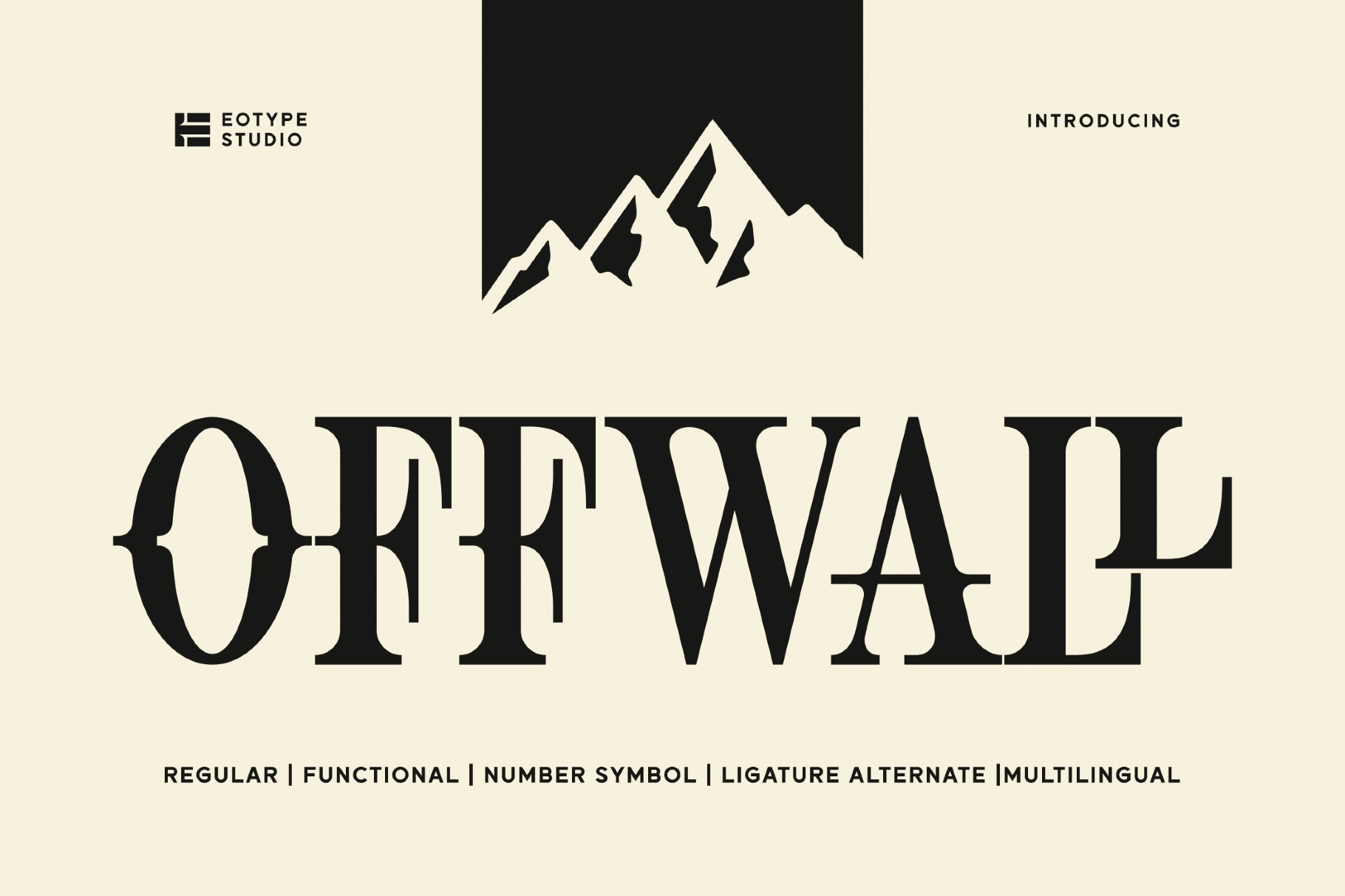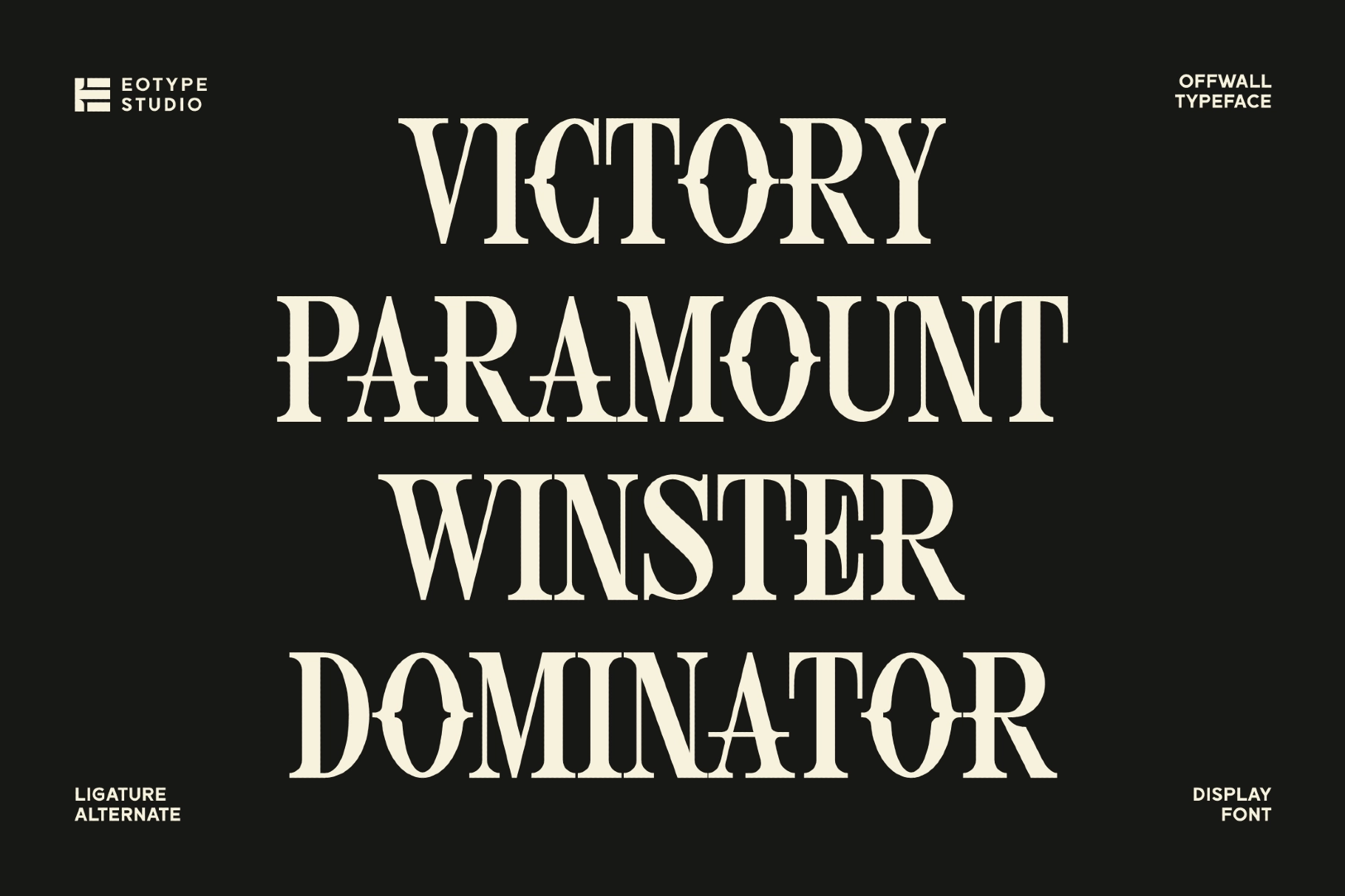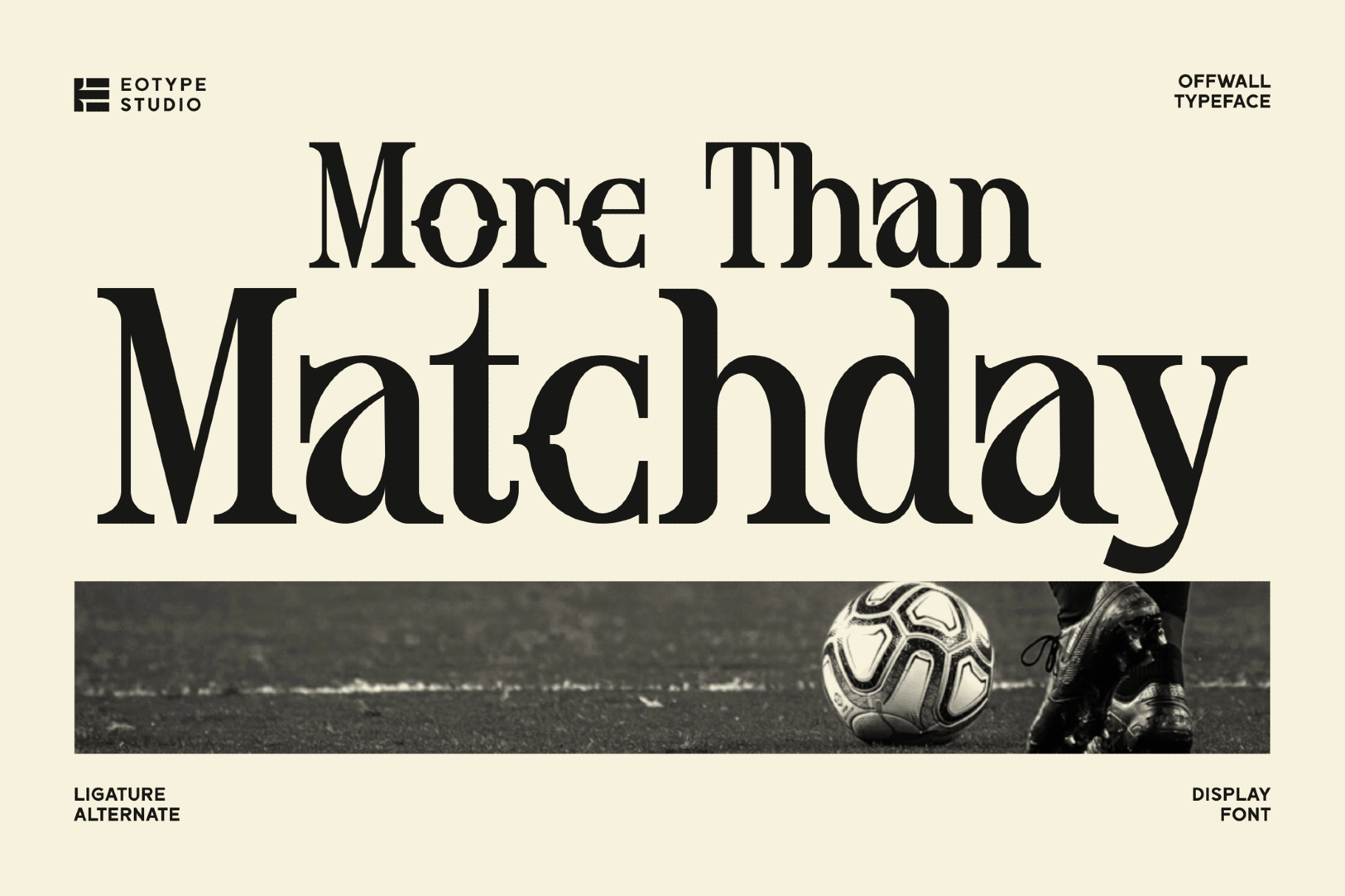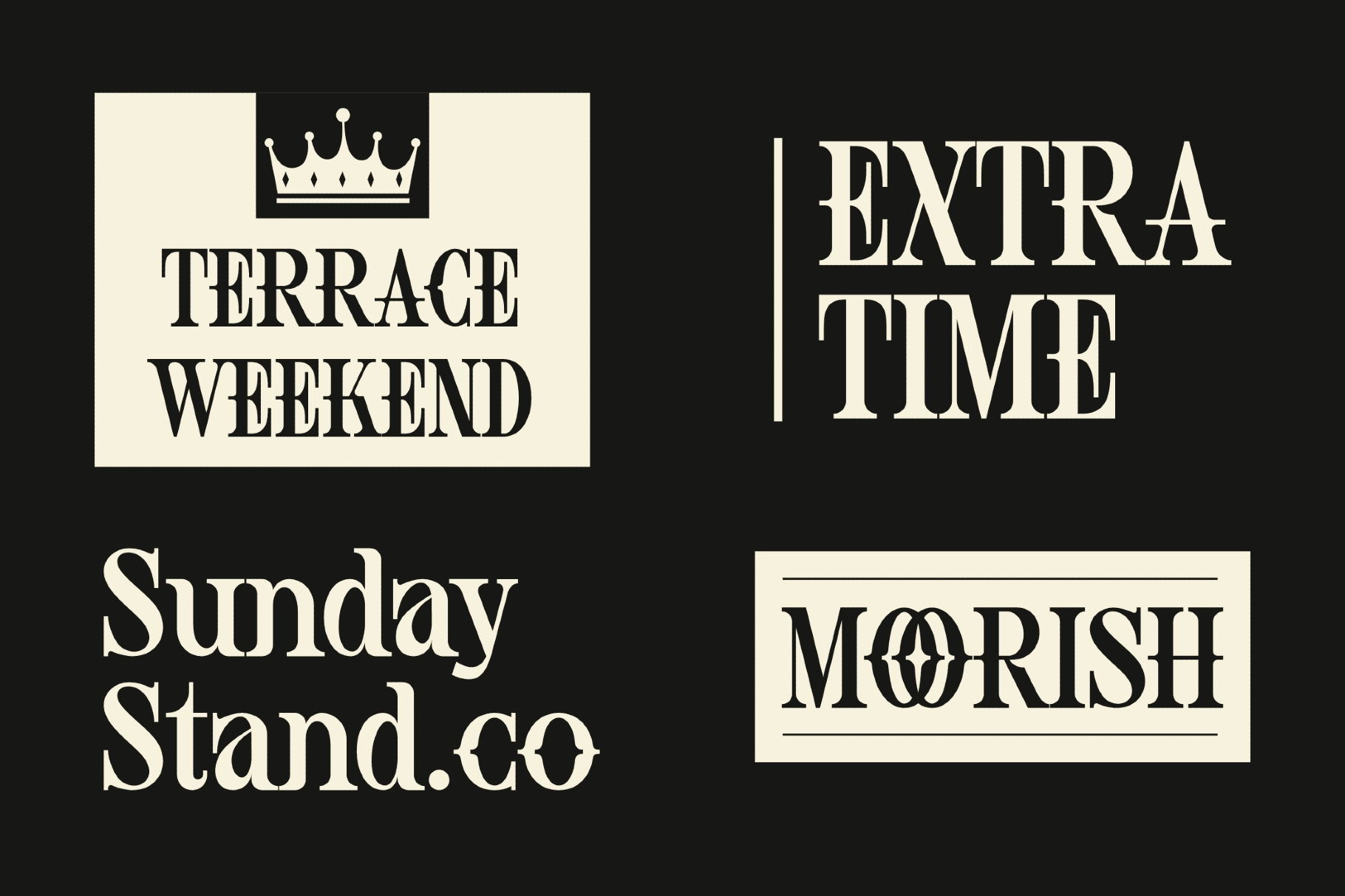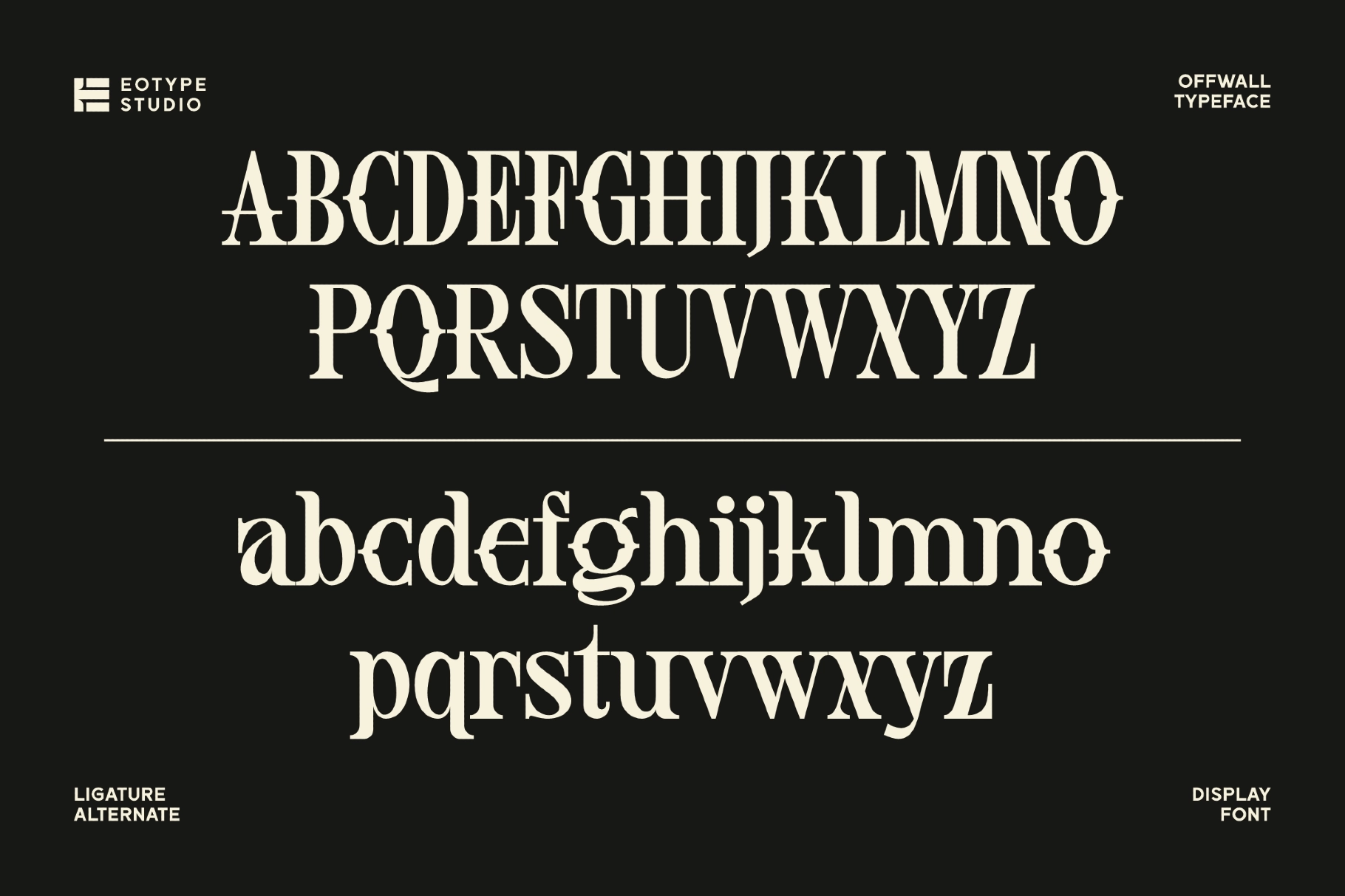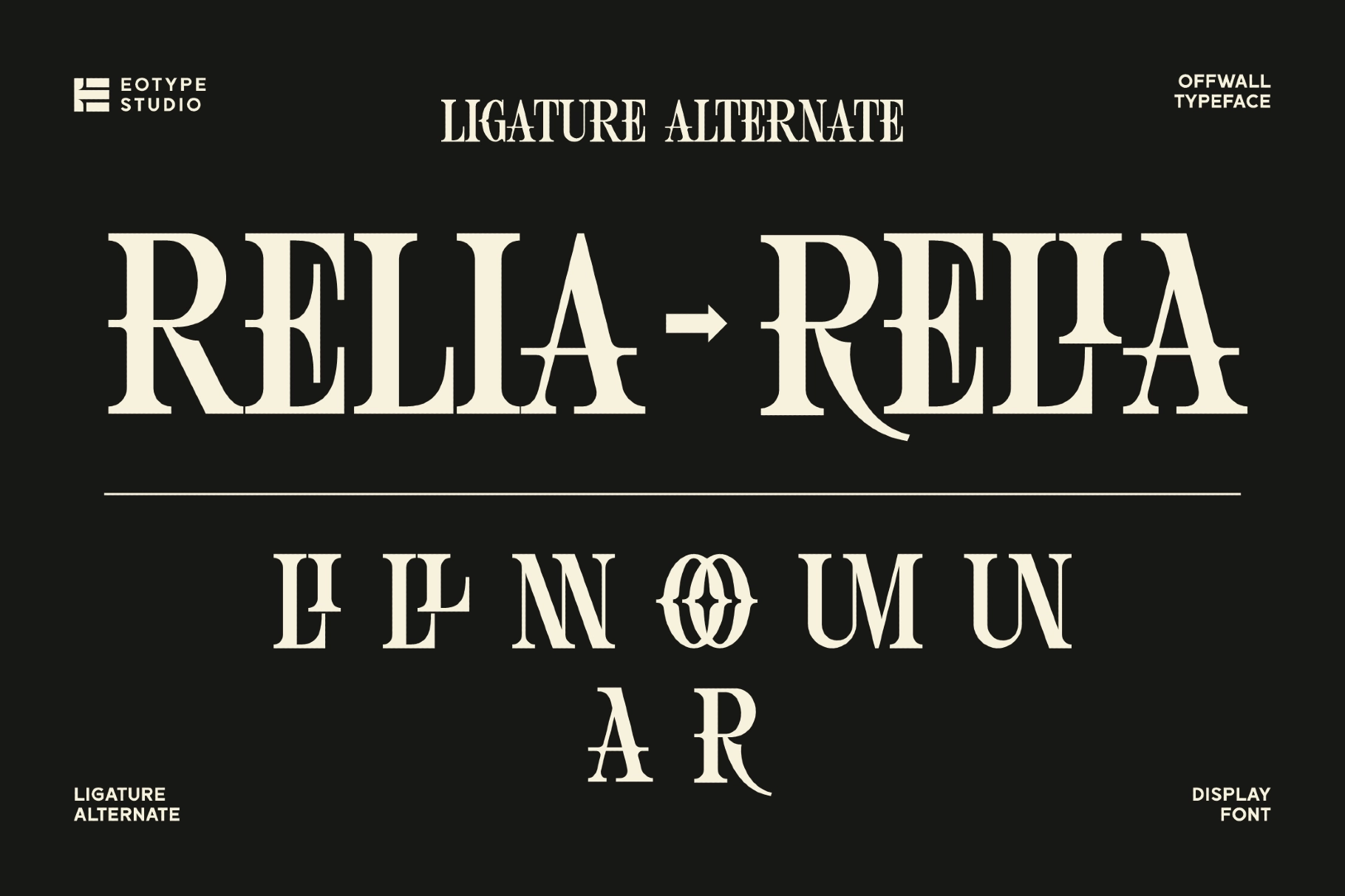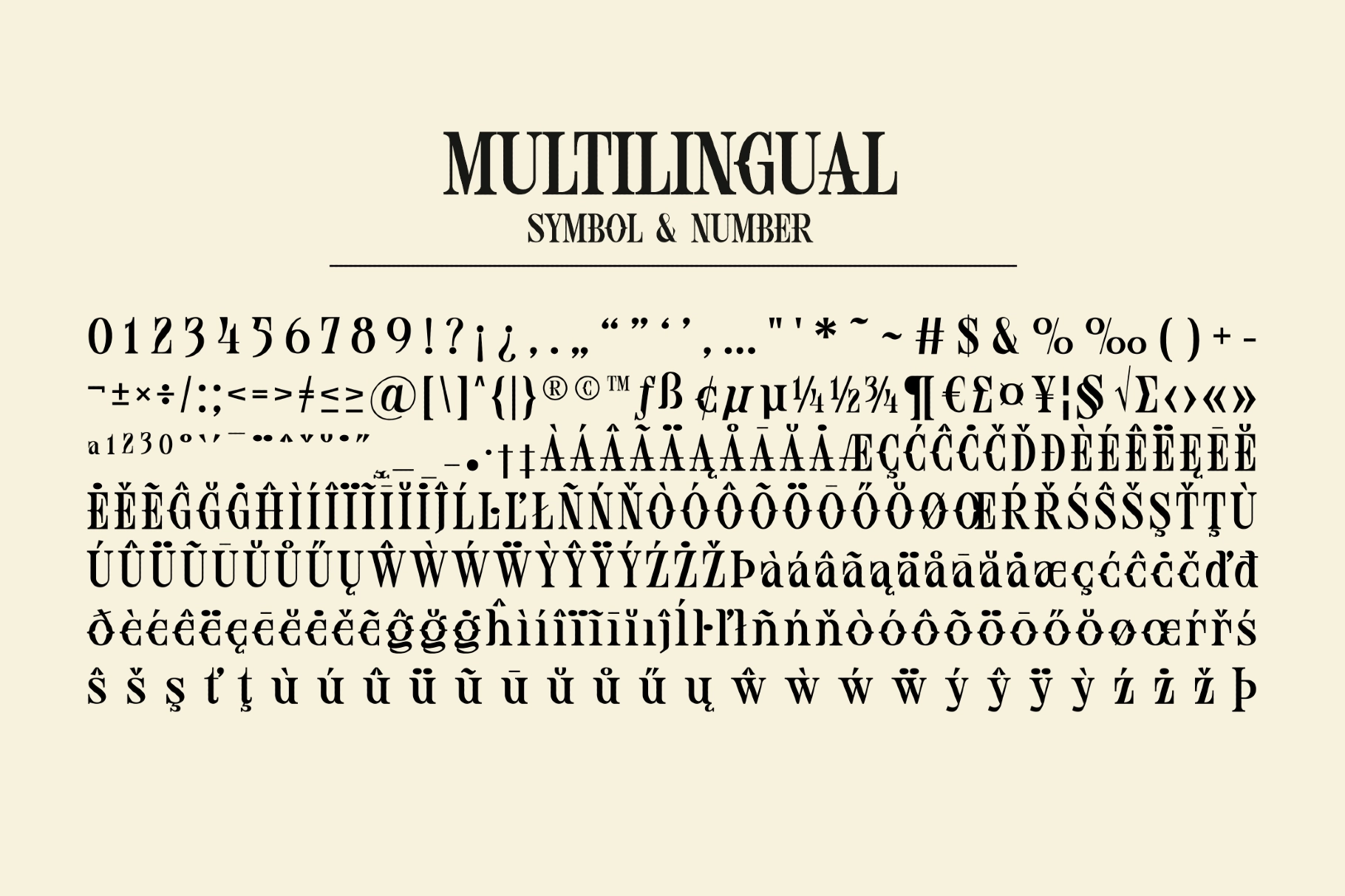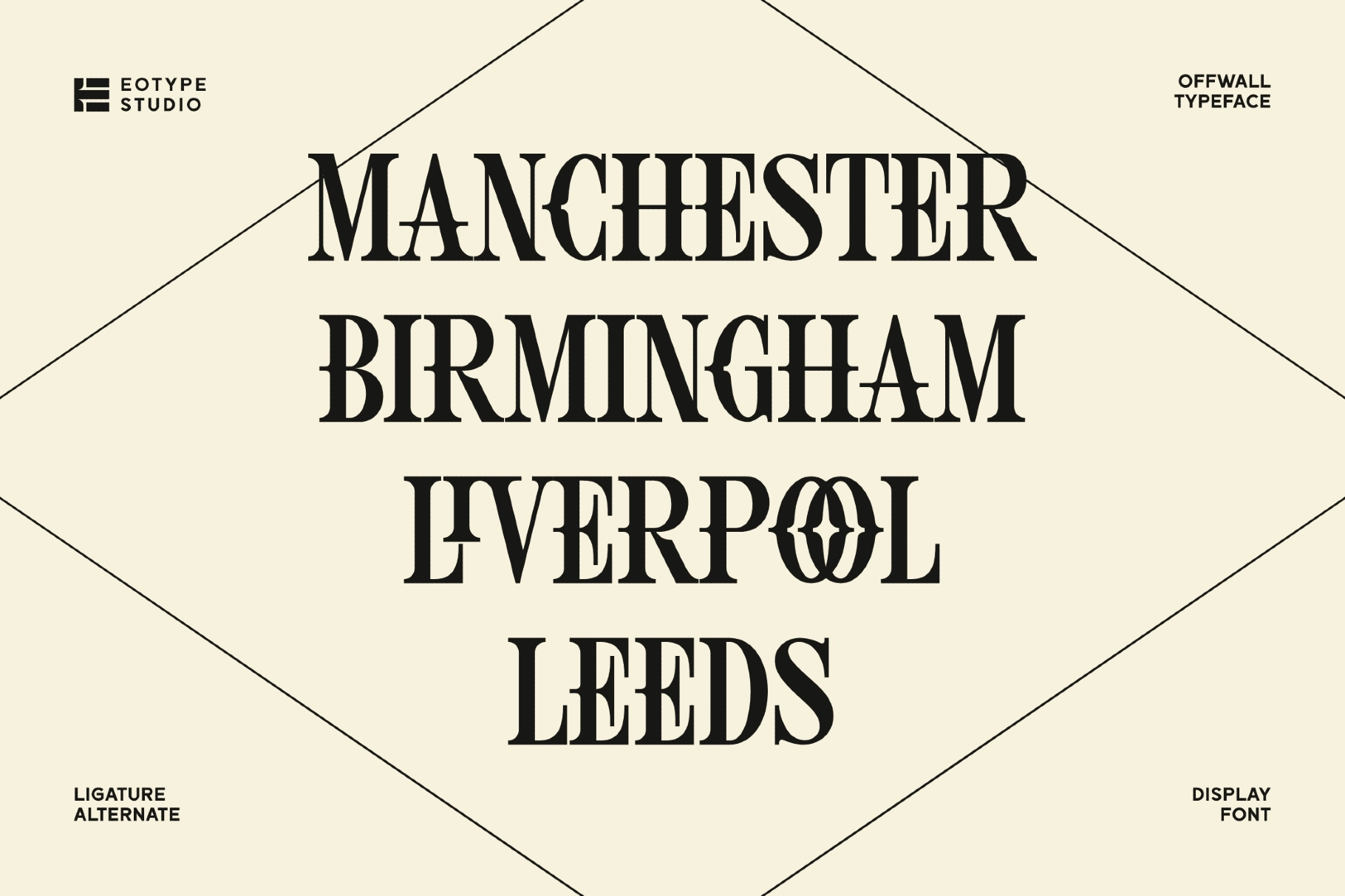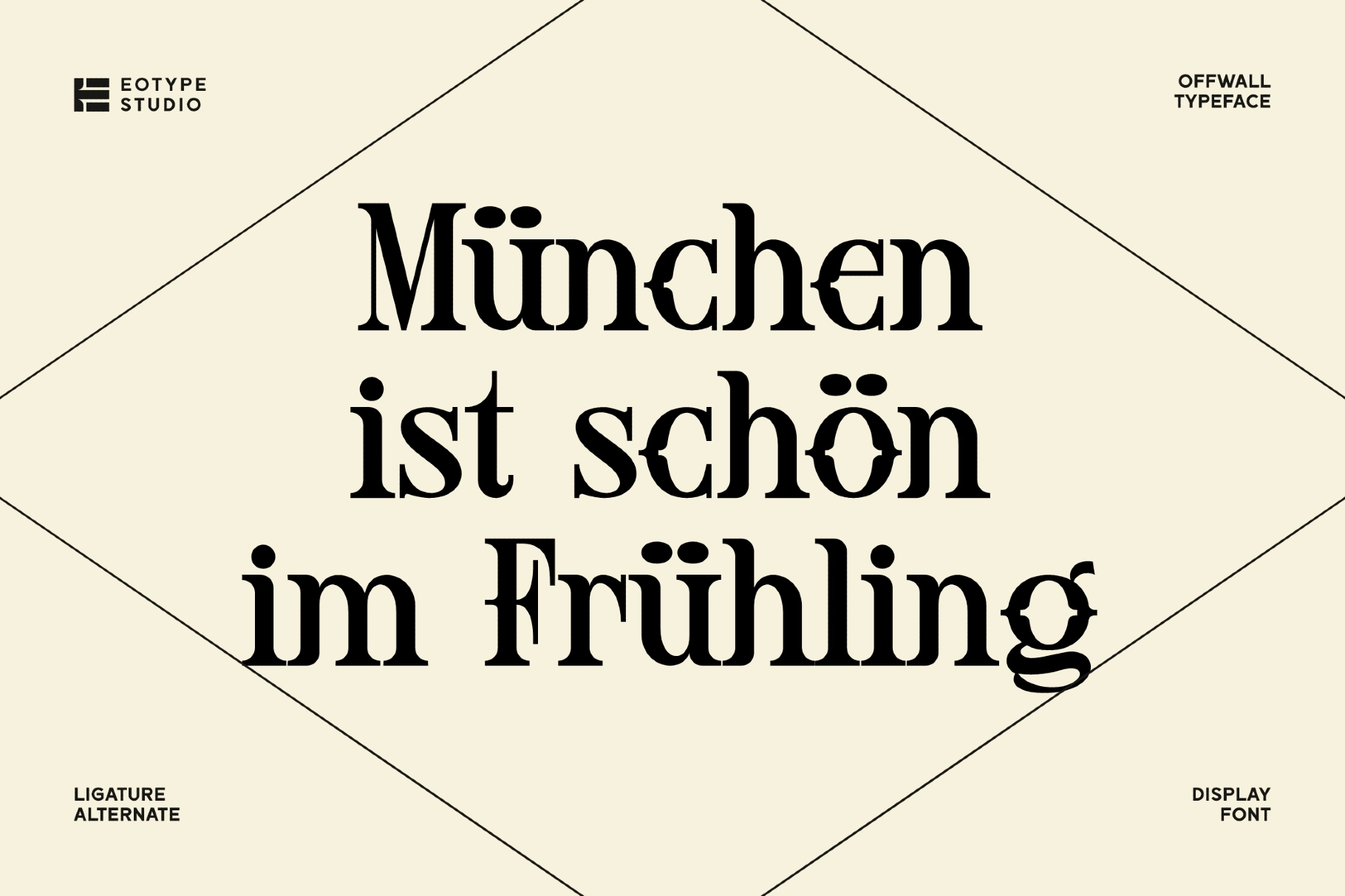
Offwall - Western Display Serif Font
Offwall
This western display serif is bold, theatrical, and cut with sharp contrast. Heavy slab-like forms, narrow counters, split details, and decorative ligatures give it a saloon-sign attitude with a graphic editorial edge. It is loud in the right way — the typographic version of kicking open the door politely.
Offwall works well for restaurant branding, bar logos, festival posters, apparel graphics, album covers, packaging labels, coffee shop identities, vintage badges, tattoo studio visuals, editorial headlines, social media promos, and merch designs. Its alternate characters and ligatures give wordmarks extra bite, while the multilingual set keeps the type system useful across broader campaign work.
- Ligatures & Alternates